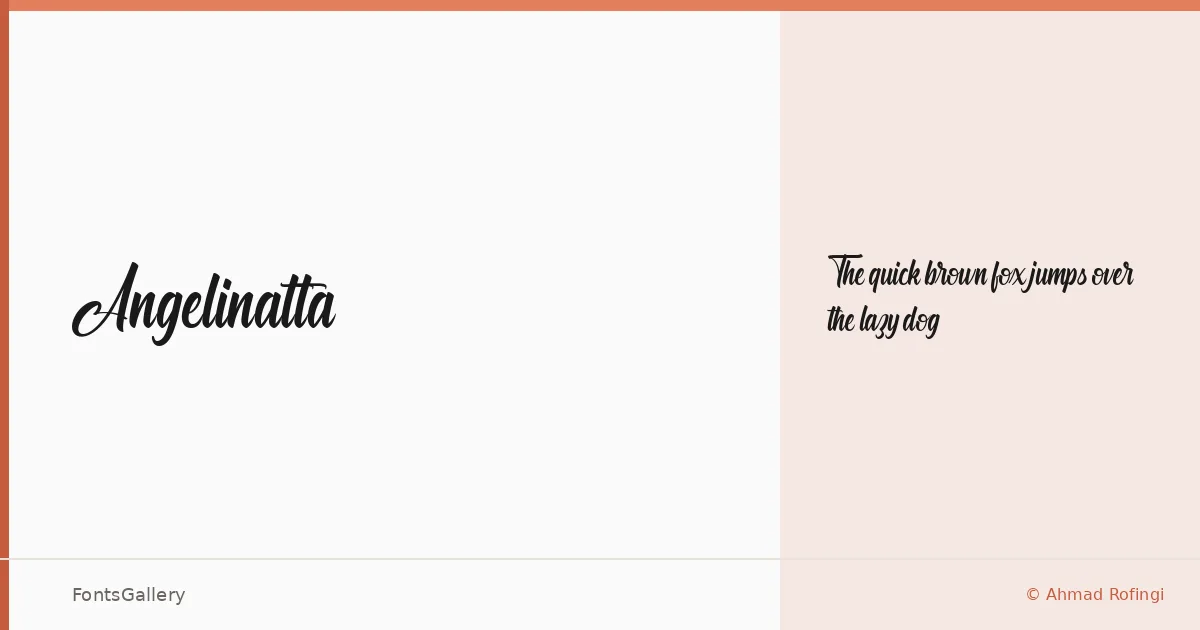
About Angelinatta Font
There is a particular ease to this script — the kind of flowing, connected letterforms that feel handwritten without looking rushed. Ahmad Rofingi drew it as a single Regular weight, and what comes through is a careful balance between classical calligraphic tradition and the clean, contemporary curves that work so well in modern luxury contexts.
This is a script face built around elegance and romantic warmth — the strokes carry just enough contrast to feel refined without tipping into ornate excess. Available in TTF and OTF formats, the single Regular style keeps things focused: you use this cut because it does exactly what a classic, elegant script needs to do, and nothing about it overstays its welcome. Latin coverage keeps the character set tight and well-considered.
It earns its place on wedding stationery, invitation cards, and greeting cards immediately, and holds up equally well as a signature logotype or branding headline where a luxury or romantic mood is called for. When you need to pair it with something, the clean geometry of Helvetica or Aileron makes a strong neutral contrast, while Aresink, Aranea, and Bizantheum offer more decorative companions that share its character without competing with it.